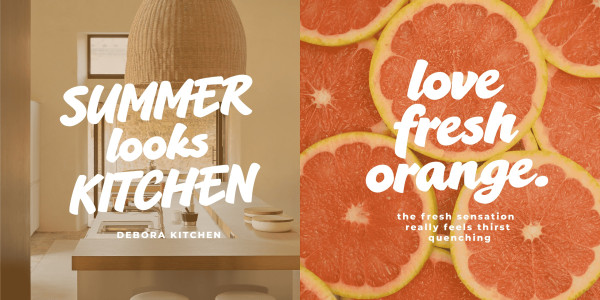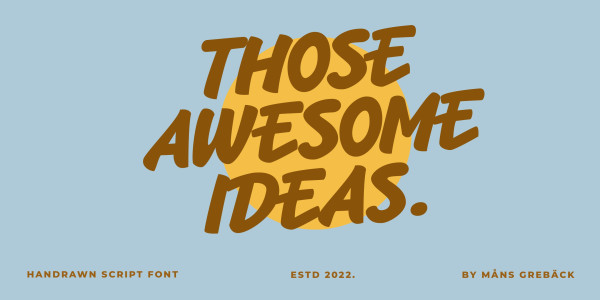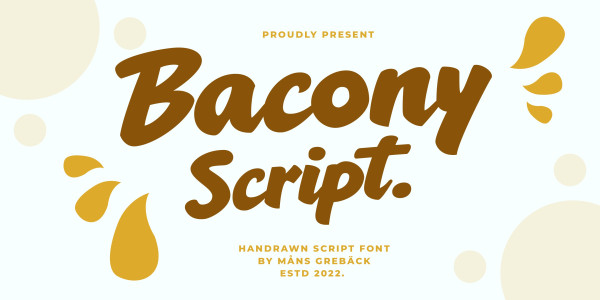
Bacony Script Font
Bacony Script Font, This rustic font is expressive, and is constructed of fat brush strokes and heavy letterforms. Use it for a comical logotype or headline to give your work that genuine hand-painted look.